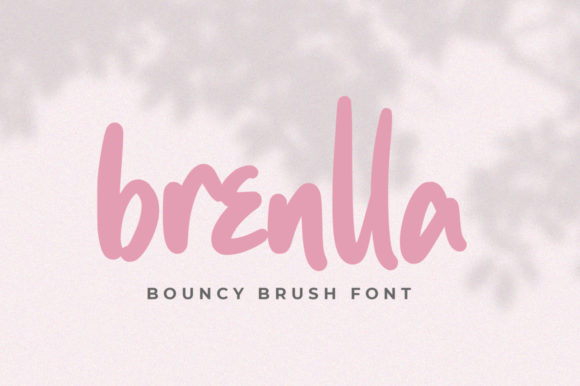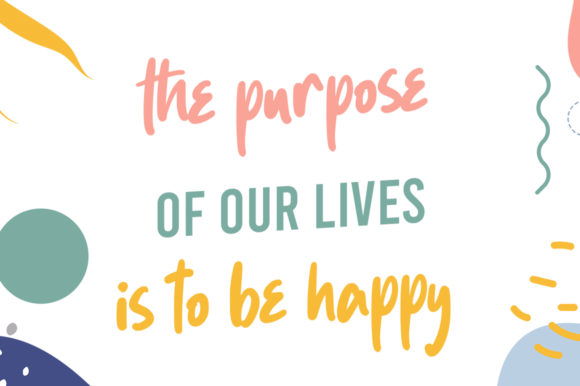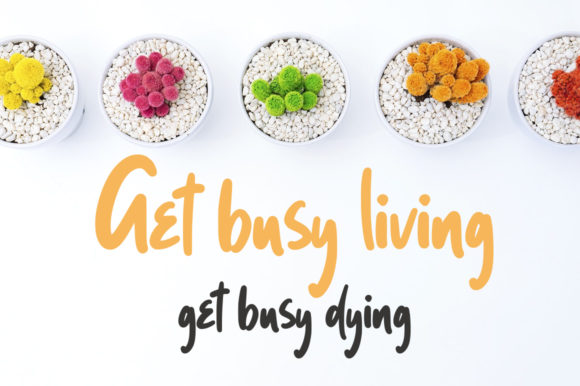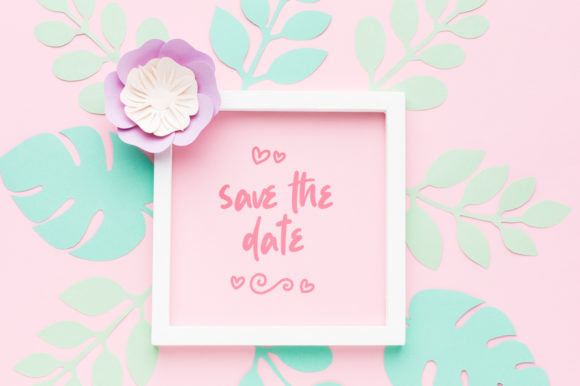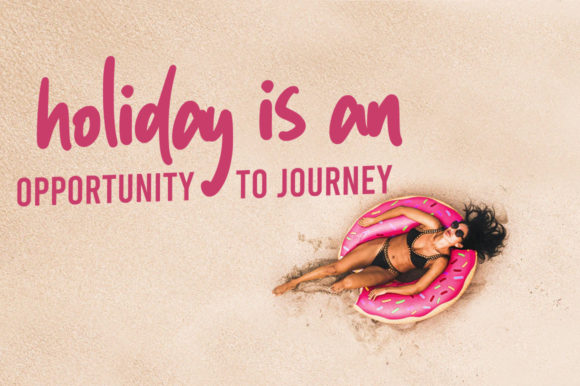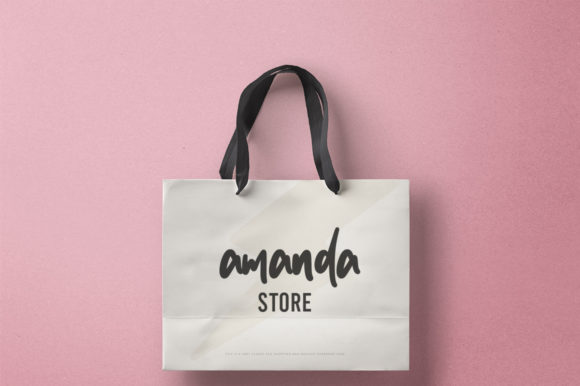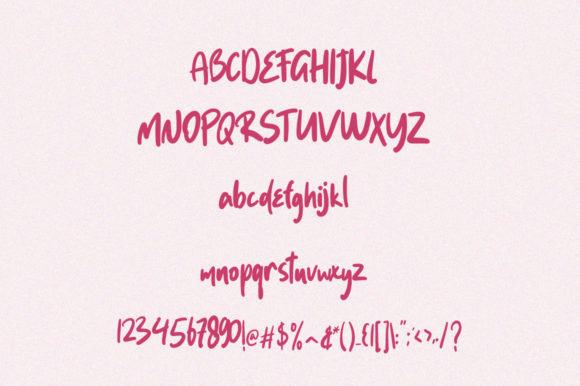
Brenlla Font
Brenlla is a sweet and friendly handwritten font that adds a touch of warmth and charm to your designs. With its natural and unique style, it brings a delightful and personal feel to any project.
The beauty of Brenlla lies in its organic and handcrafted appearance. The letters flow smoothly, resembling the effortless strokes of a handwritten script. This natural quality gives the font a sense of authenticity and invites a personal connection with the audience.
The versatility of Brenlla is one of its greatest strengths. Its friendly and approachable nature makes it suitable for a wide range of designs and themes. Whether you’re working on invitations, greeting cards, logos, branding, social media graphics, or any other creative project, Brenlla adapts effortlessly to complement your vision.
The font’s distinct personality adds character to your designs and sets them apart from the ordinary. It brings a touch of playfulness and warmth, evoking a sense of comfort and familiarity. Brenlla captures the essence of handwritten notes and messages, creating a personal and intimate atmosphere in your designs.
Unleash your imagination and let Brenlla be your creative companion. From cute and whimsical designs to elegant and sophisticated compositions, the font adapts to suit your needs. Its versatility allows you to explore various styles and applications, making every design uniquely tailored to your vision.
Moreover, Brenlla’s legibility ensures that your message is easily communicated. The letterforms are clear and well-crafted, ensuring that your audience can read and understand your content without any difficulty. This balance between style and readability ensures that your designs not only look beautiful but also effectively convey your message.
In conclusion, Brenlla is a sweet and friendly handwritten font that brings a natural and unique style to your designs. Its versatility and adaptability make it a perfect choice for a wide range of projects. So, let your creativity soar and explore the limitless possibilities that Brenlla offers!